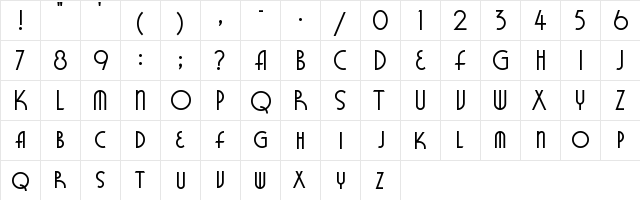
BigTentPlayersNF Regular
Design Context for BigTentPlayersNF Typeface
BigTentPlayersNF offers clean, dependable letterforms without strong stylistic allegiance, making it a practical choice for designers who need flexibility.